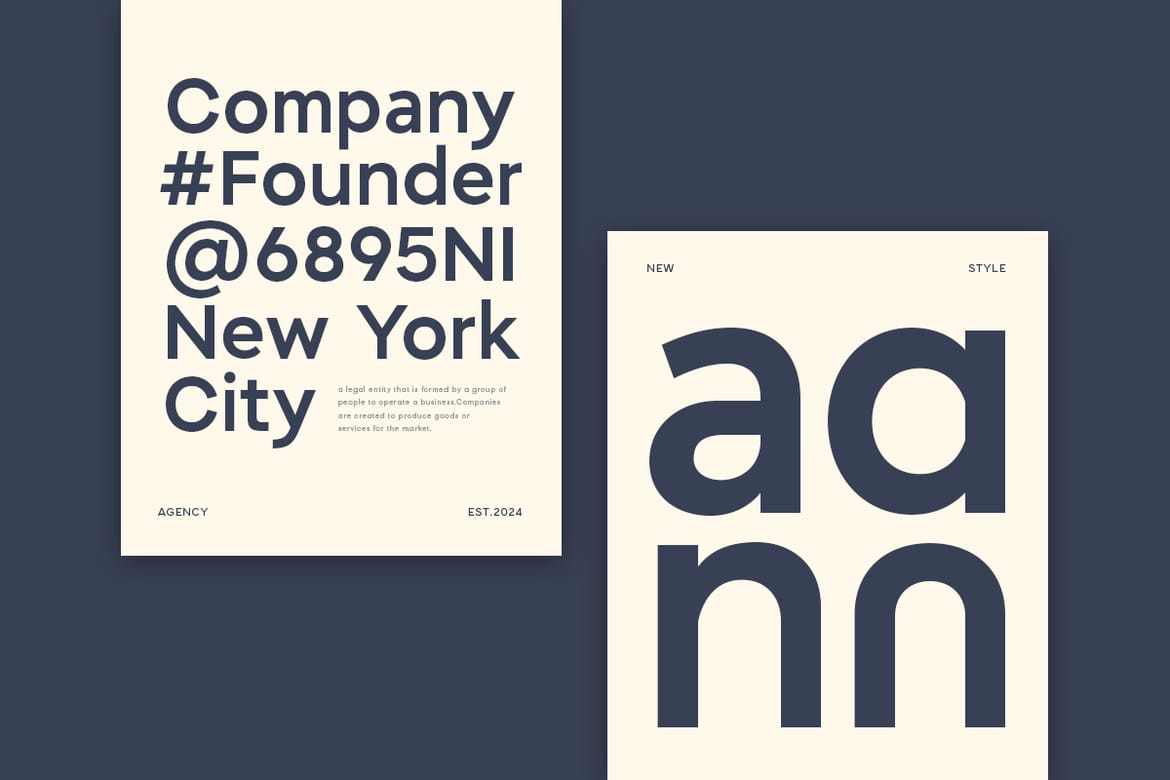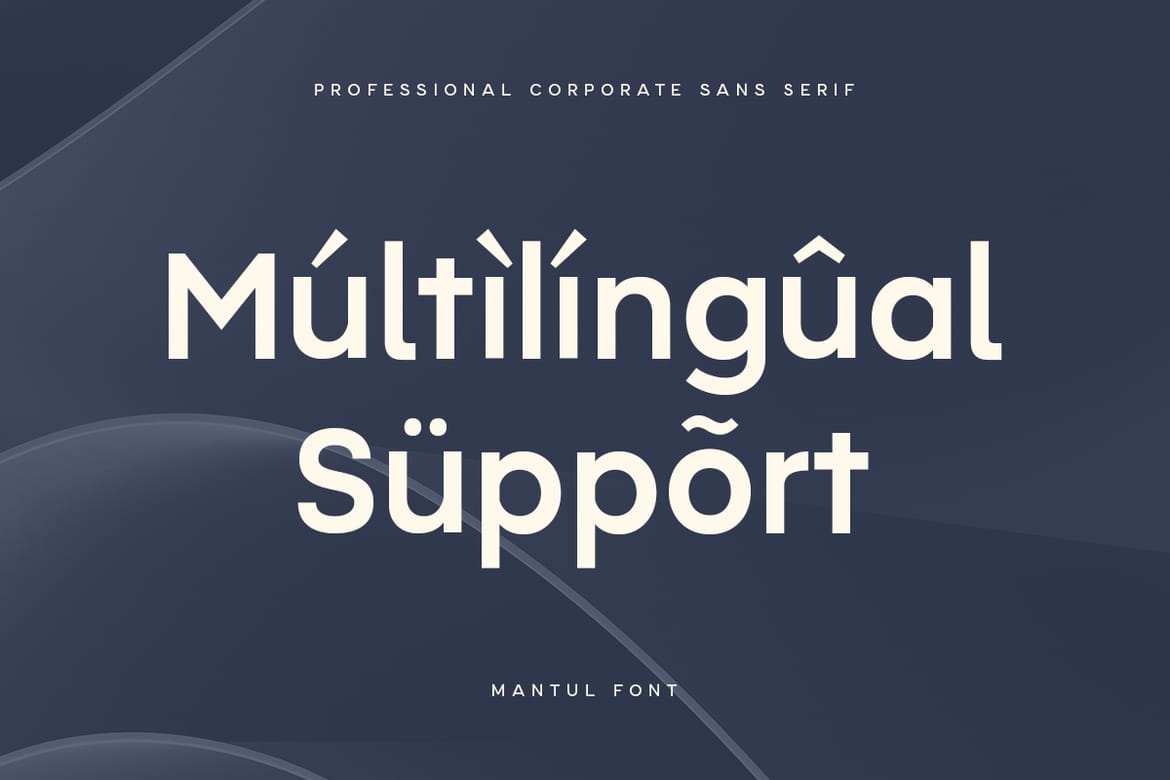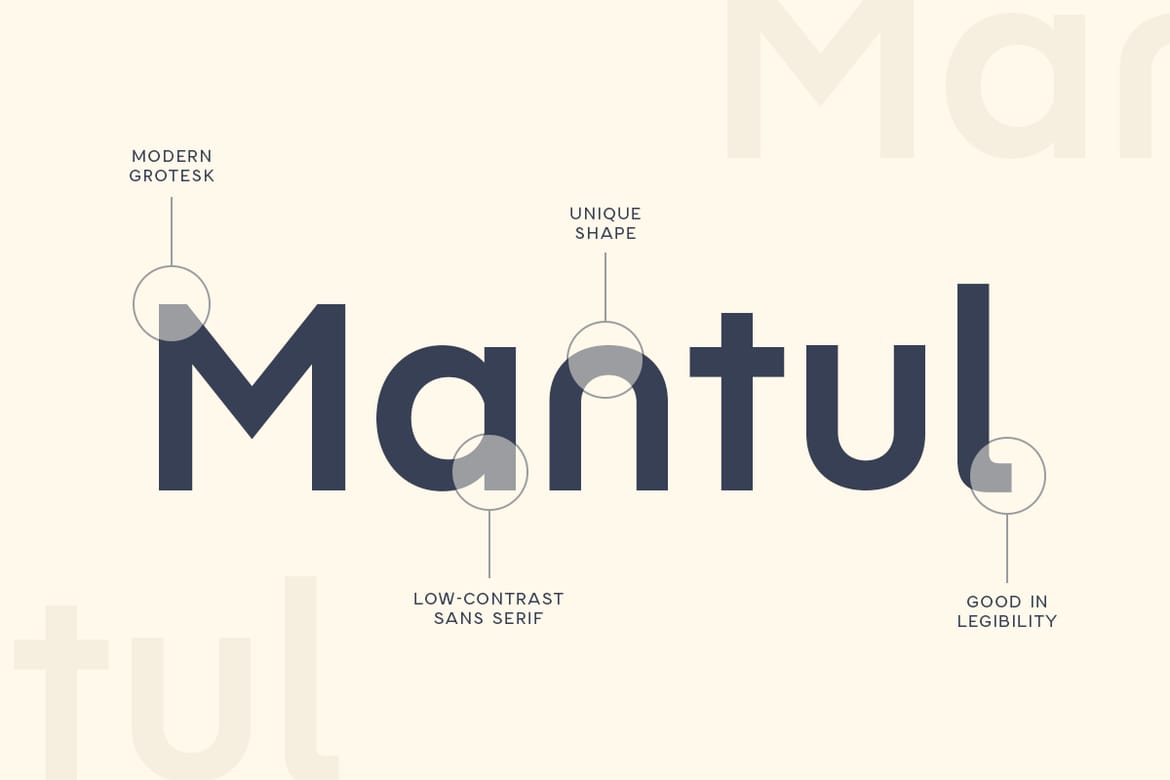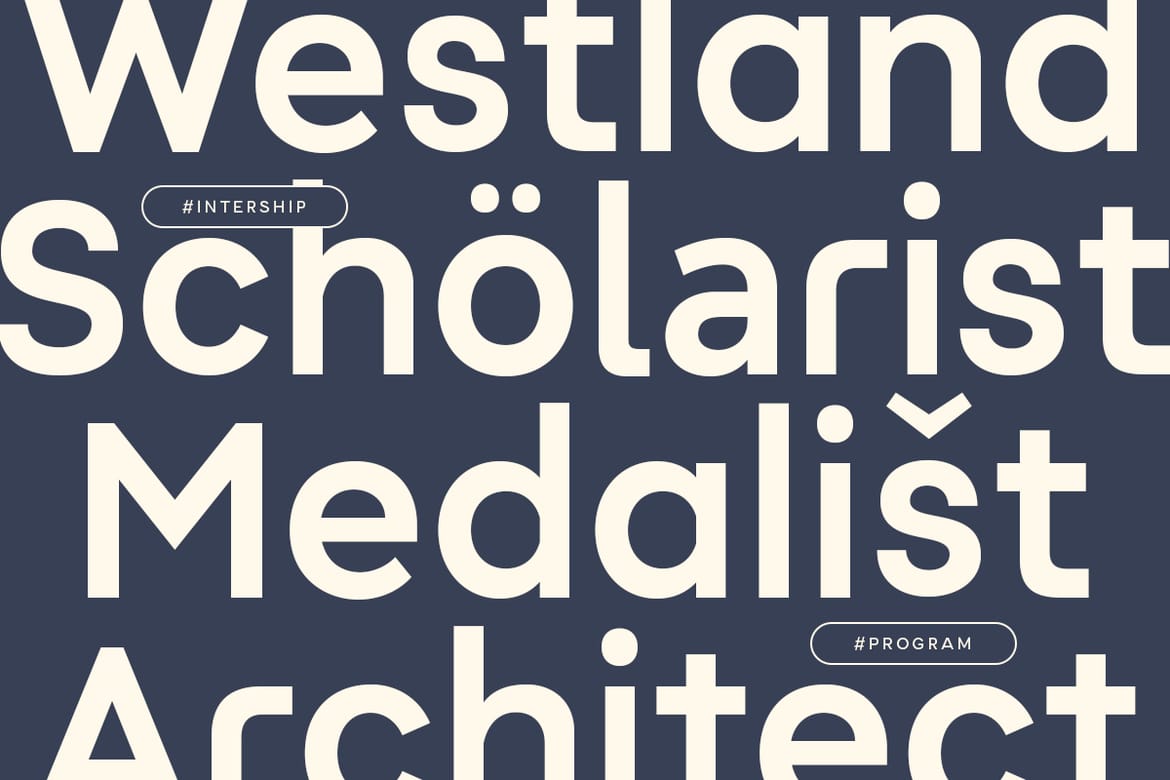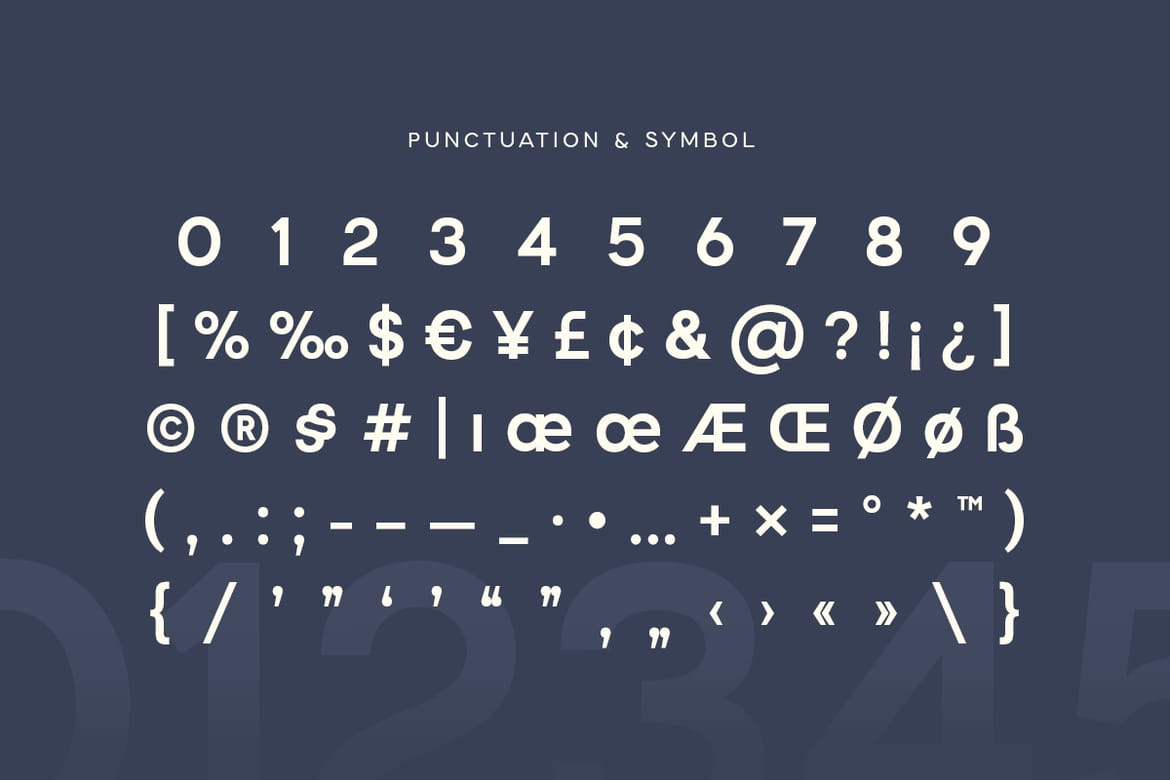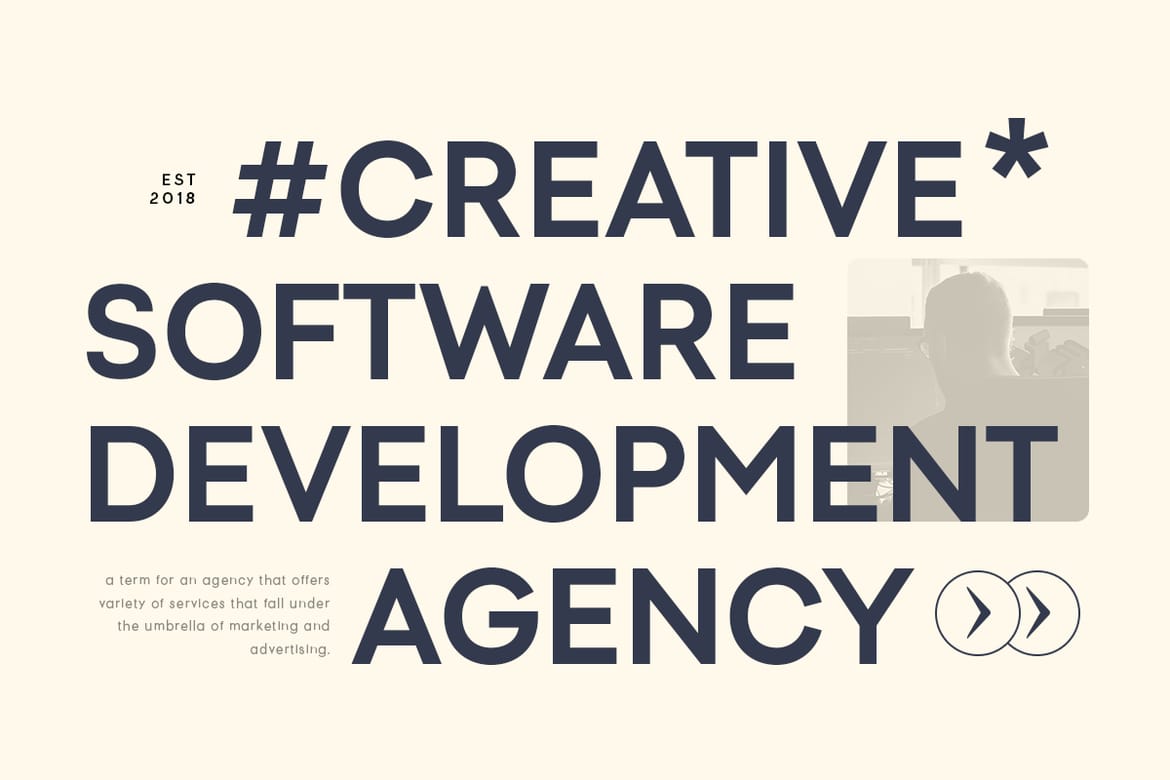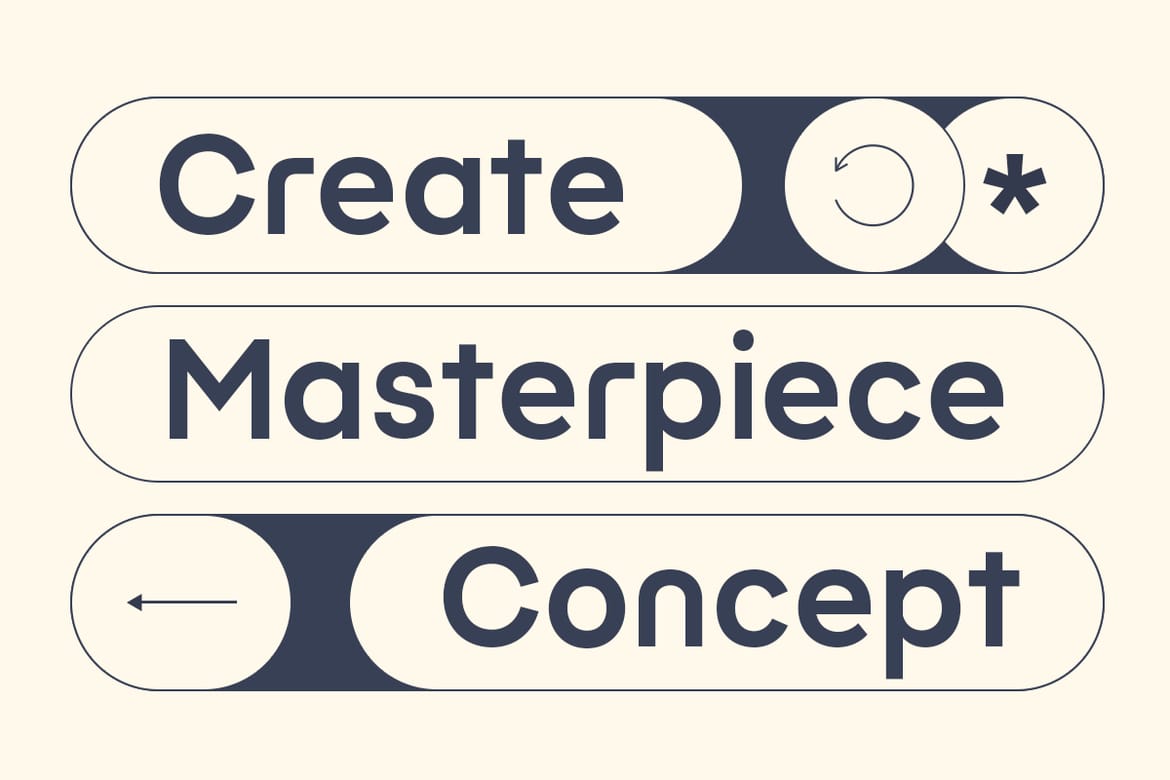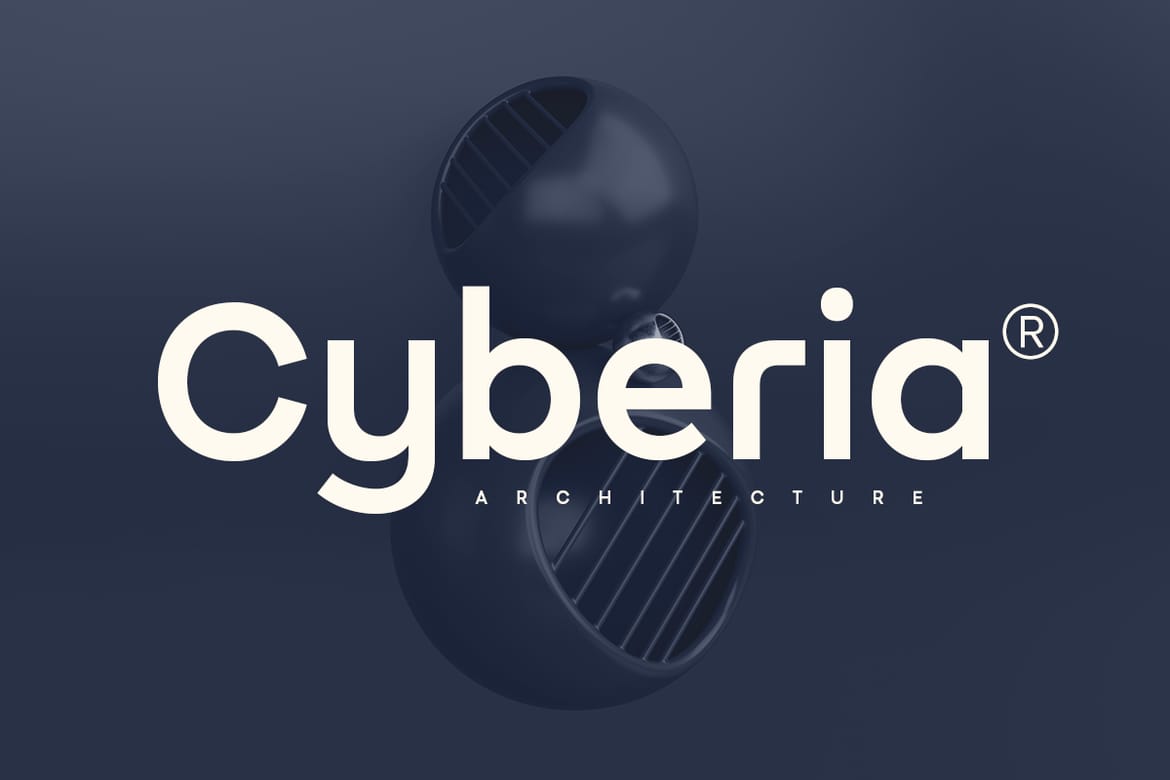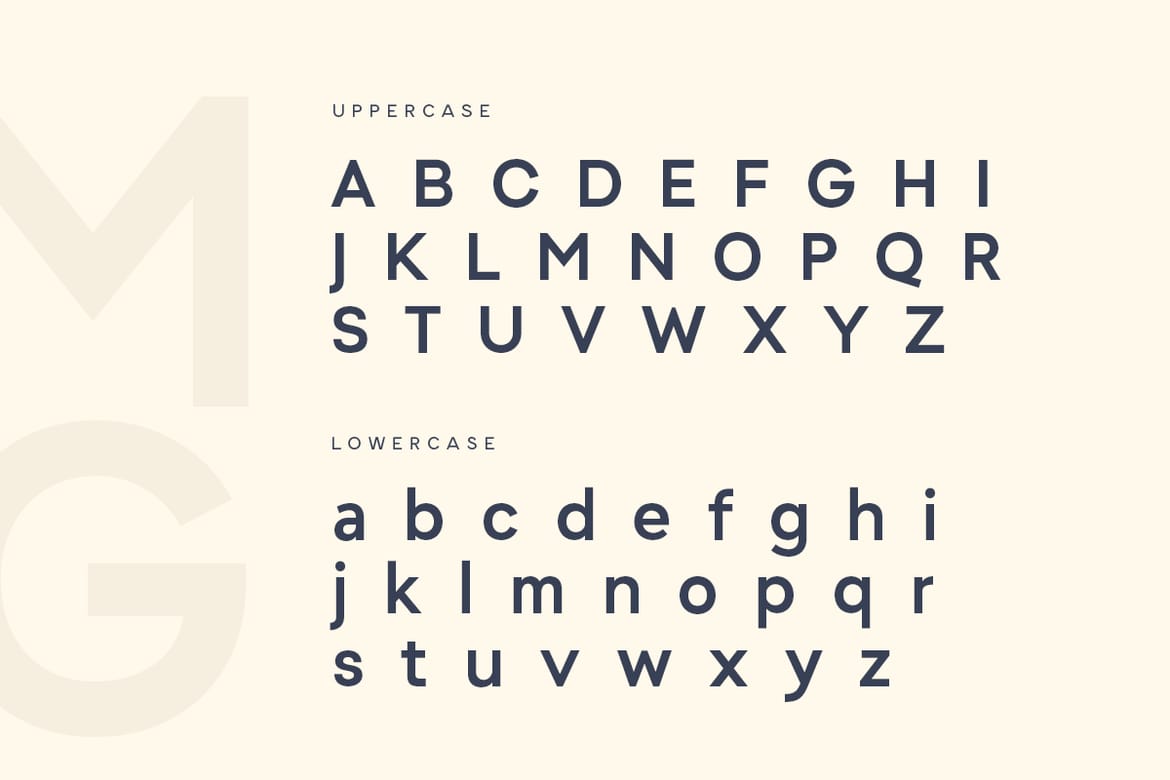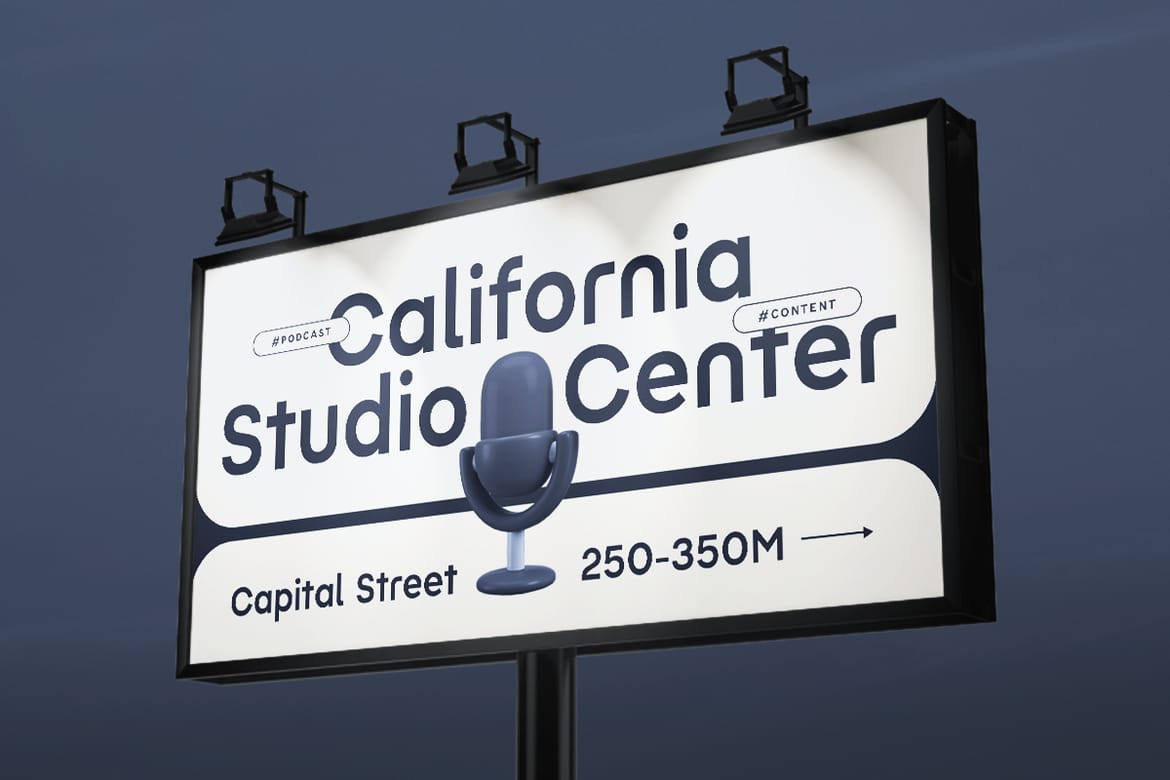
An Unique Modern Corporate Font that we created special for Professional and Modern branding needs that will give you more Unique look, with alternates in unique shape will be ready to add value of your brand. It so nice to leverage designer or product owner that need solutions to make their design look more Professional and modern. And specially for this font, We prepared any alternate characters to help you create unlimited variations for your creative needs.
Mantul Professional Corporate Sans Serif font ready with:
Any options to get creative variations (combination of Alternates)
Preview as a inspirations that you can do with this font
Ready with Lowercase and Uppercase characters
- Professional corporate branding font
- Alternate characters for unique variations